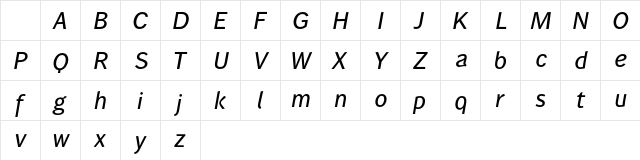
Wendelin Reduced is a composed and adaptable typeface that performs quietly and consistently across a wide range of design contexts. The slanted form adds forward momentum and visual energy.
Pro Tip: Use Wendelin Reduced for emphasis, pull quotes, and subheadings where its slanted energy can add rhythm to the layout.